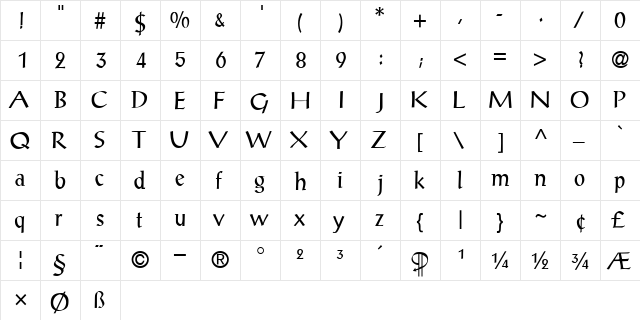
Procopius Regular
Design Context for Procopius Typeface
Procopius is a composed and adaptable typeface that performs quietly and consistently across a wide range of design contexts.